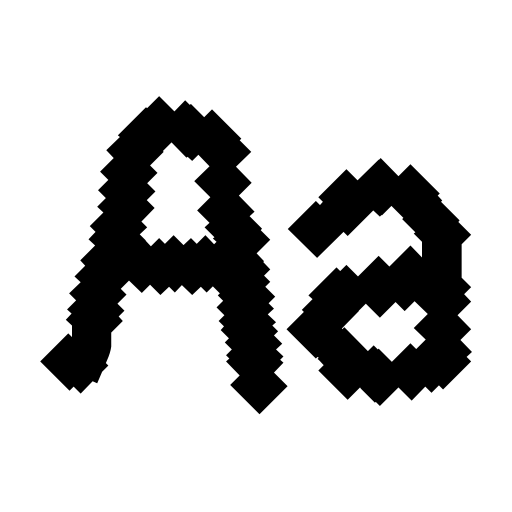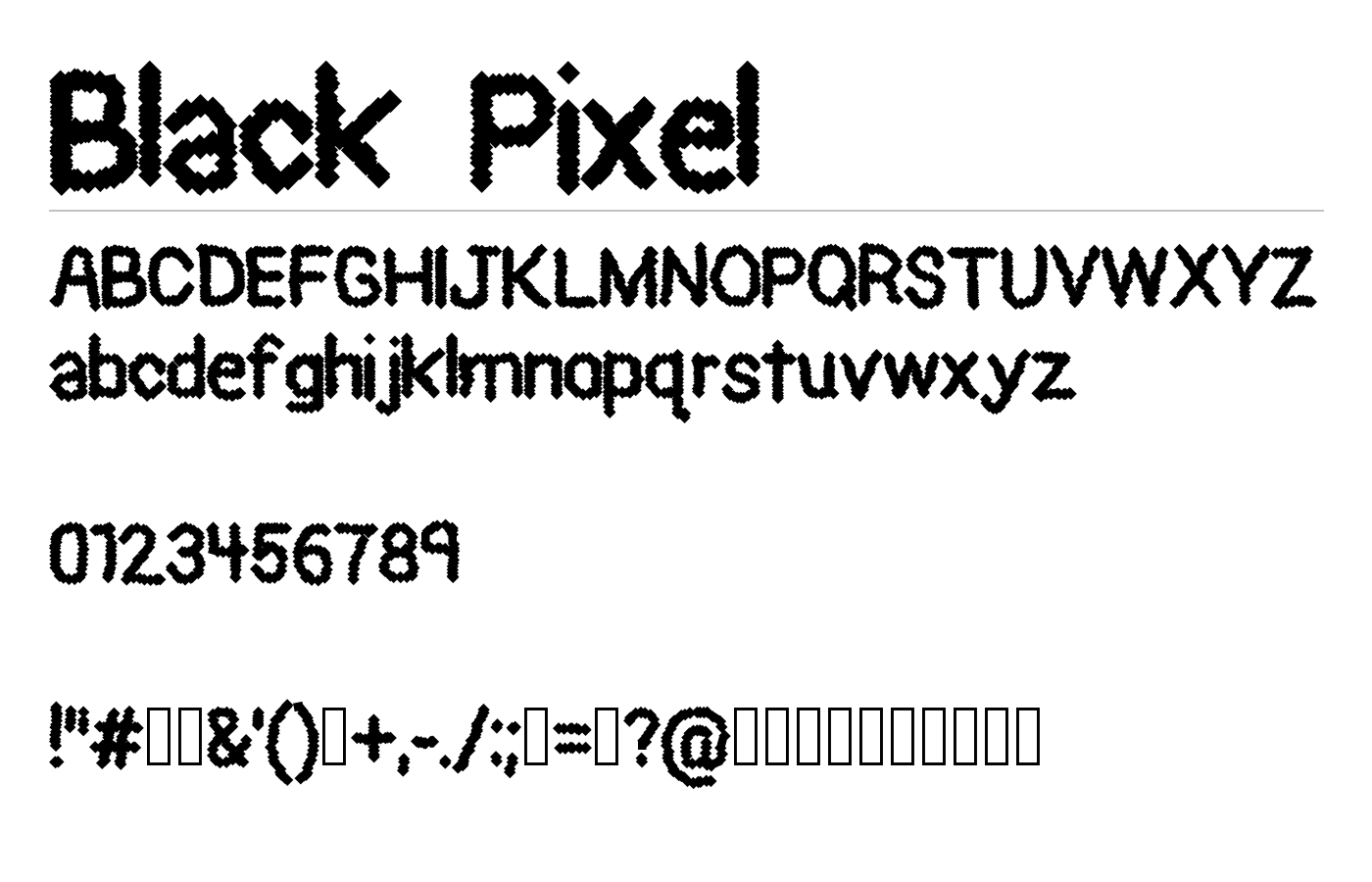
Black Pixel Font is a distinctive sans serif typeface characterized by its pixelated, blocky style that evokes a retro digital or video game feel. Its consistent stroke weight and geometric, jagged edges make it ideal for designs that want to capture a nostalgic or tech-inspired vibe, working especially well in headlines, logos, and playful branding projects. This font’s quirky, pixel-art aesthetic adds a unique and fun touch, standing out in creative and digital contexts.
Black Pixel Font
About Black Pixel Font